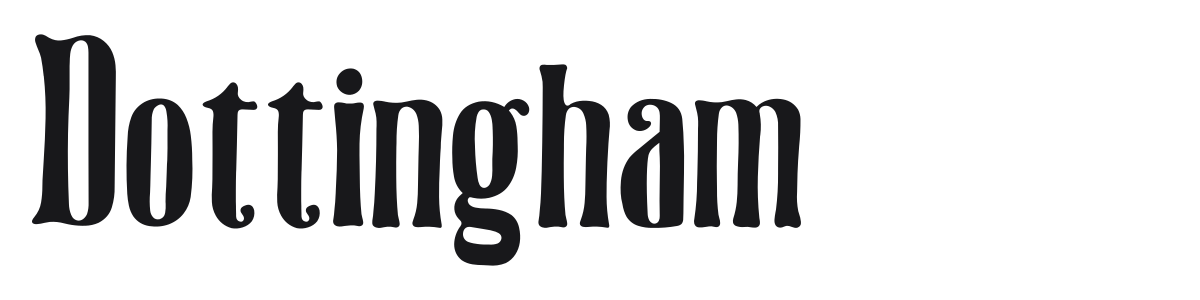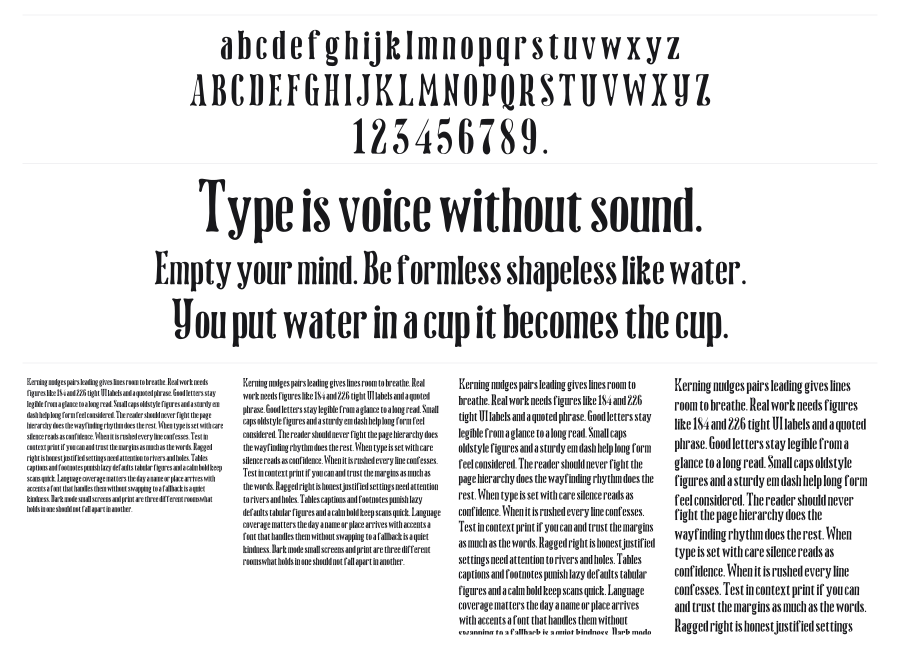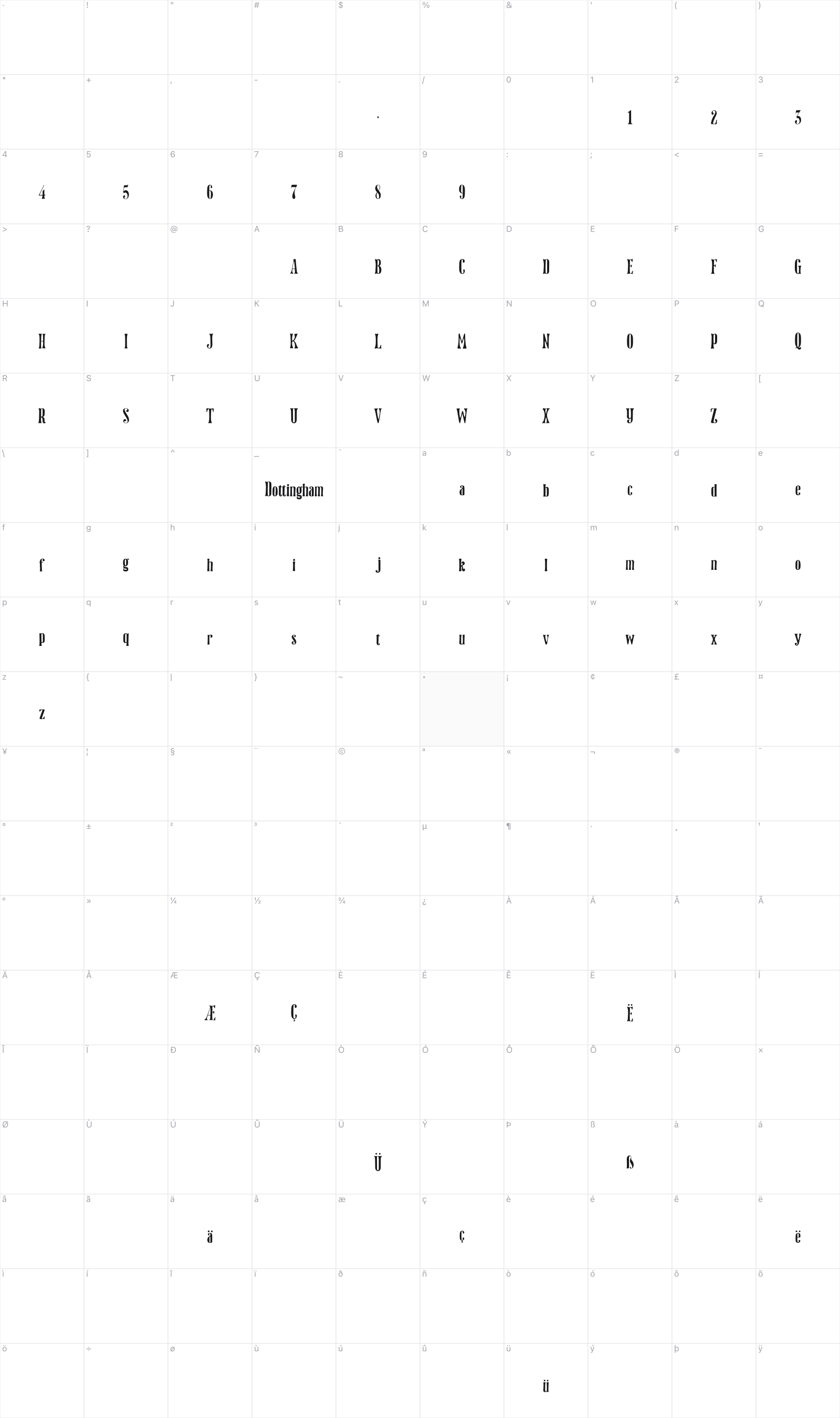
Dottingham
Dottingham is a condensed Victorian display serif with extreme stroke contrast and dramatically exaggerated serifs. Inspired by 19th-century European and North American signage, publications, and advertisements, it carries that distinctive era of bold, decorative printing. A distressed variant is also available for an authentically aged look.